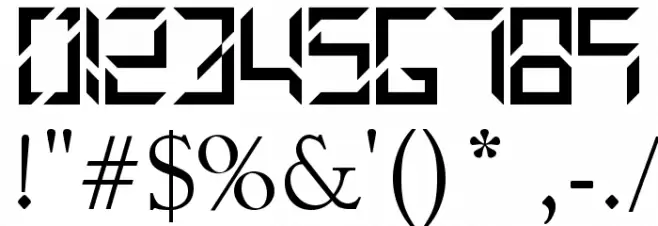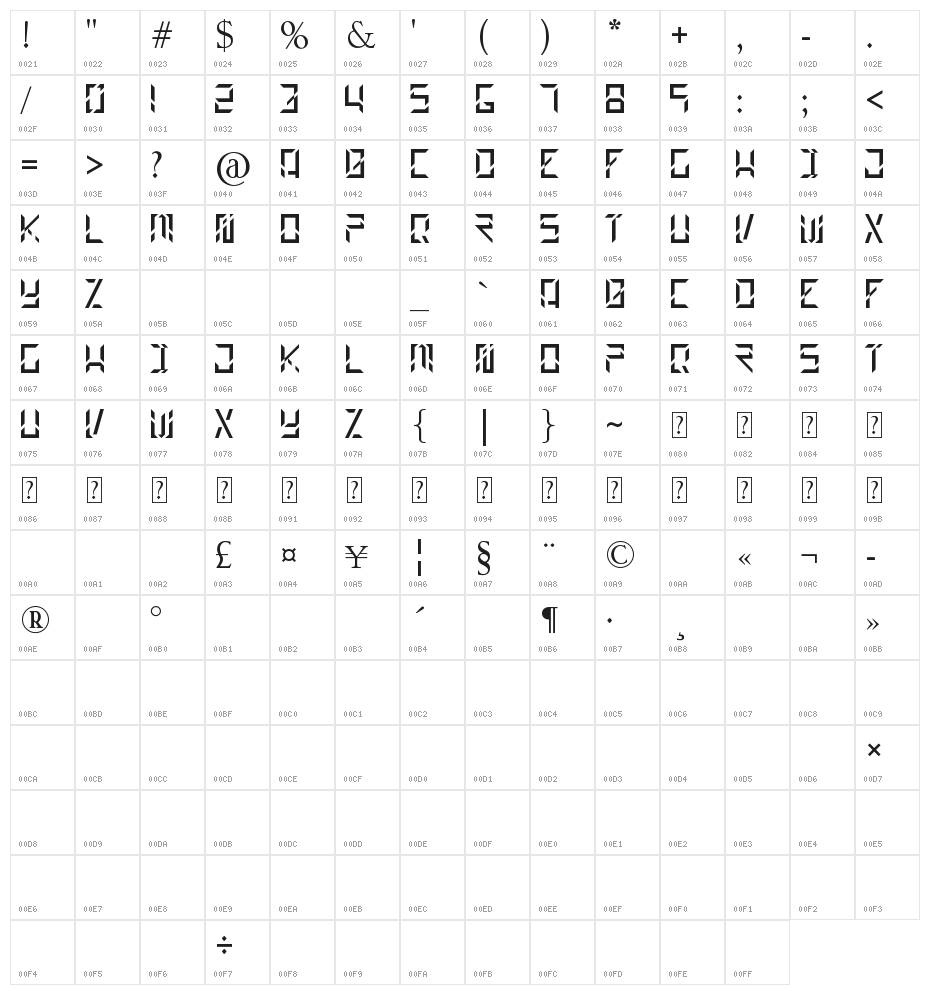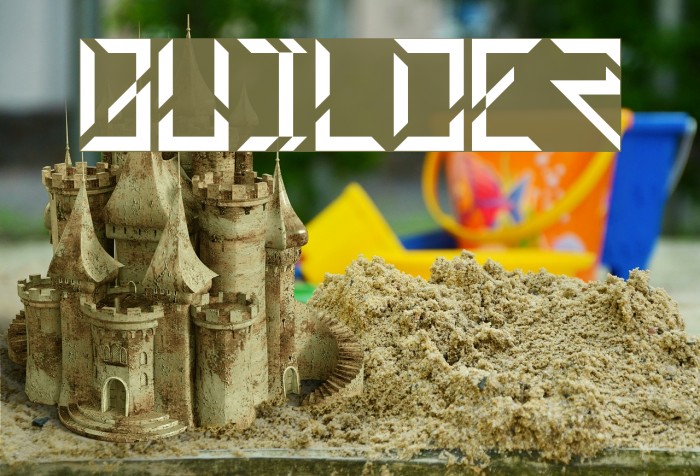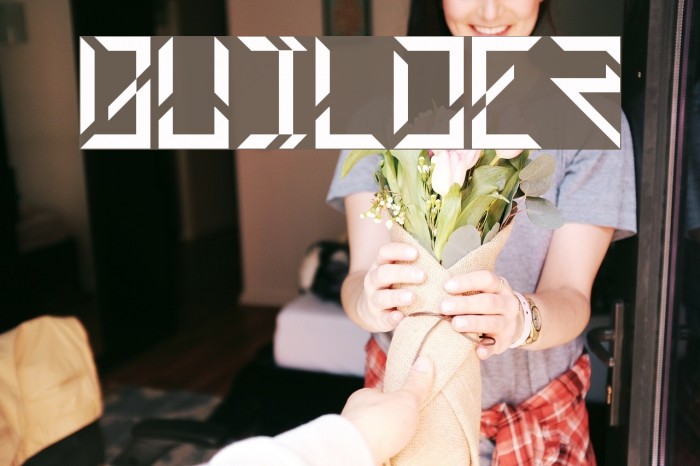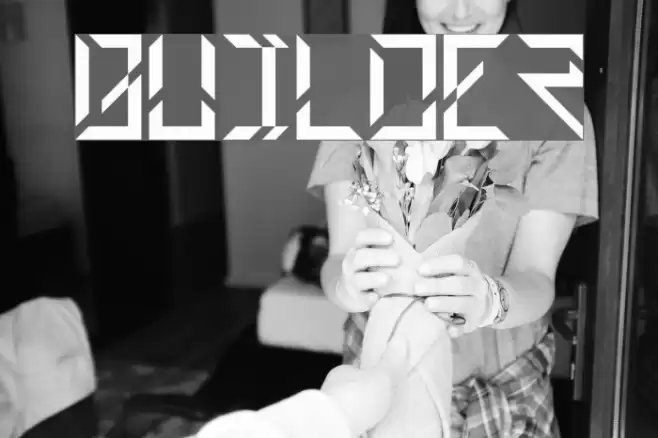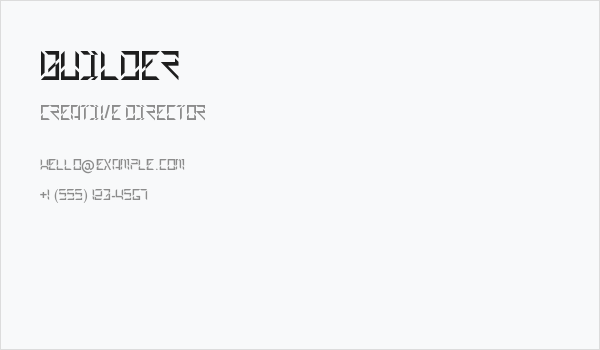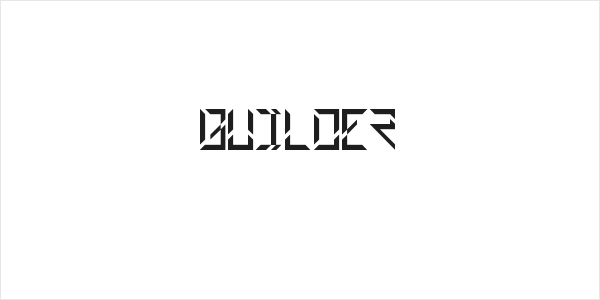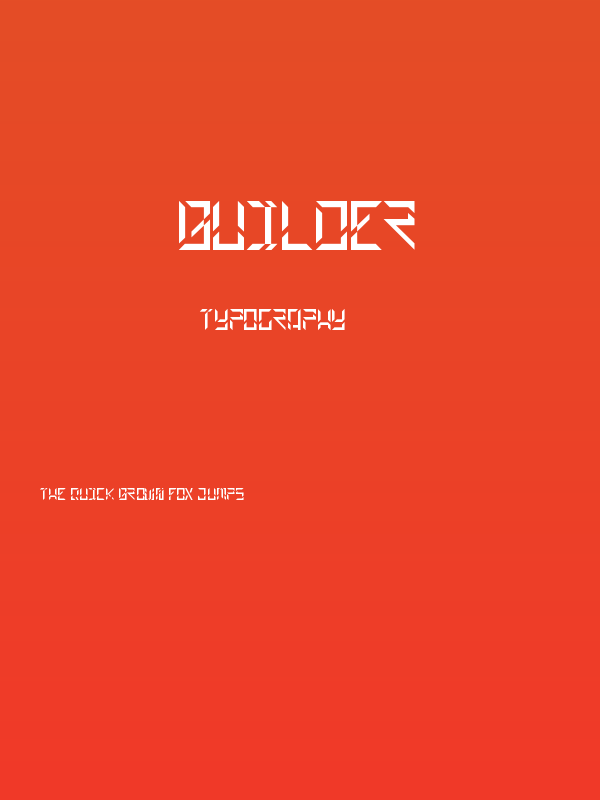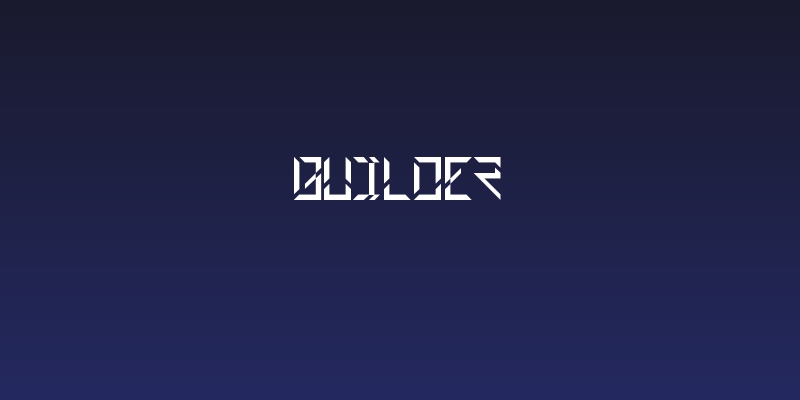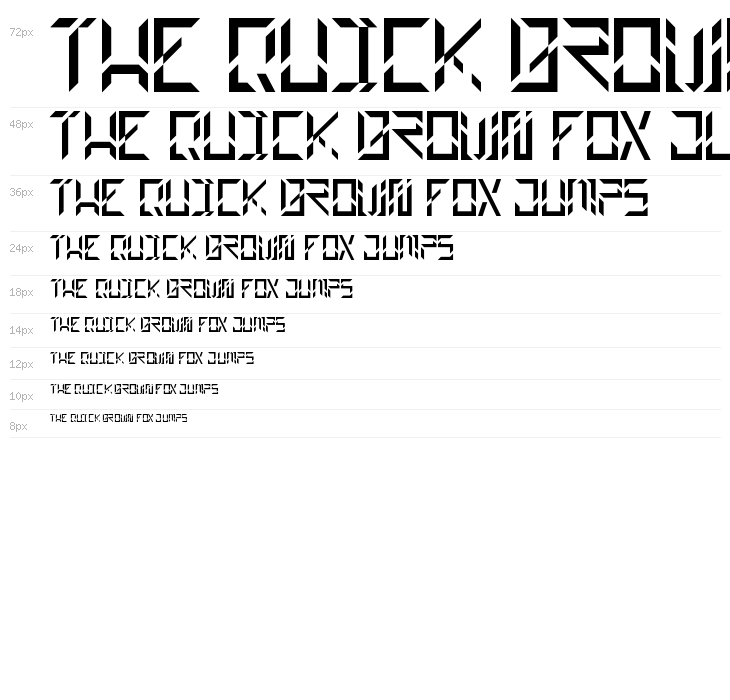
BUILDER Font
BUILDER Description
This font features a bold, geometric design with sharp angles and a futuristic aesthetic. The characters are constructed with a series of diagonal cuts and straight lines, creating a sense of movement and energy. The uppercase and lowercase letters maintain a consistent style, with the same angular cuts and bold strokes. Numbers and special characters are designed to match the overall theme, ensuring a cohesive look across all elements. The font's unique style makes it stand out, ideal for projects that require a modern and edgy appearance.
| Proposed Projects | Ideal for branding, posters, video game graphics, and sci-fi themed projects. |